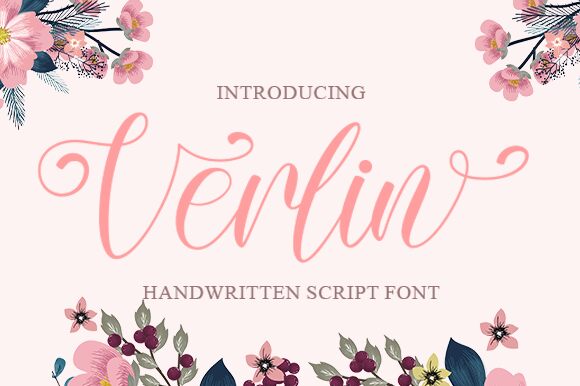
Verlin
Verlin is a script calligraphic typeface designed by Nirmala. This elegant font can be used with other fonts to bring out an original look for your projects or used on its own to bring elegance to your designs.